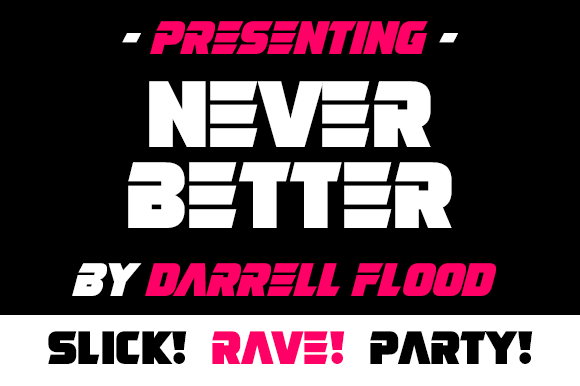
Introduction to Never Better Font
Never Better is a bold, modern display font with a cool futuristic style.
Perfect for tech and science themes or just adding extra visual impact to your creations .
Key Features of Never Better Font